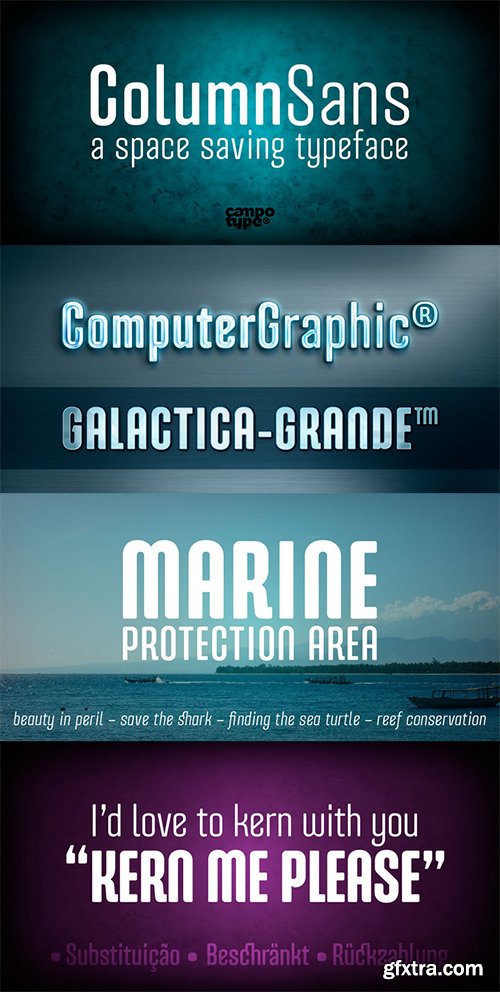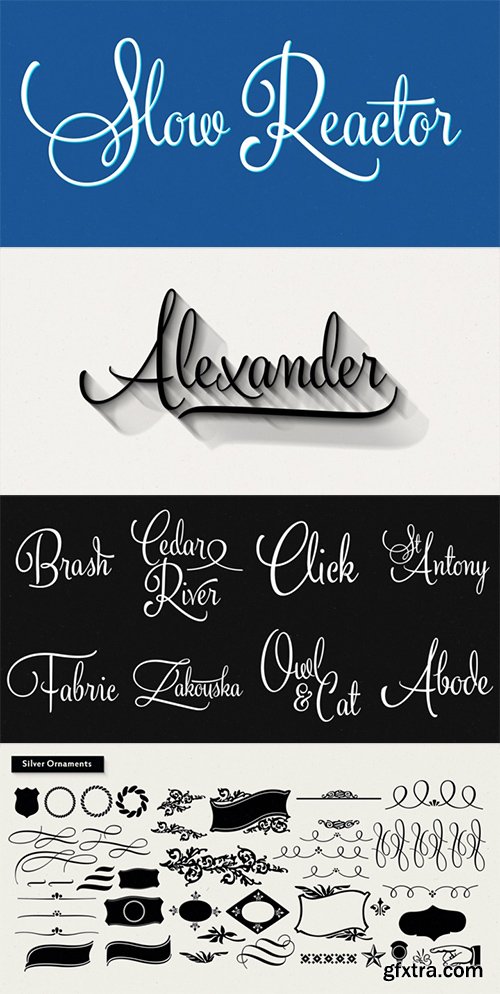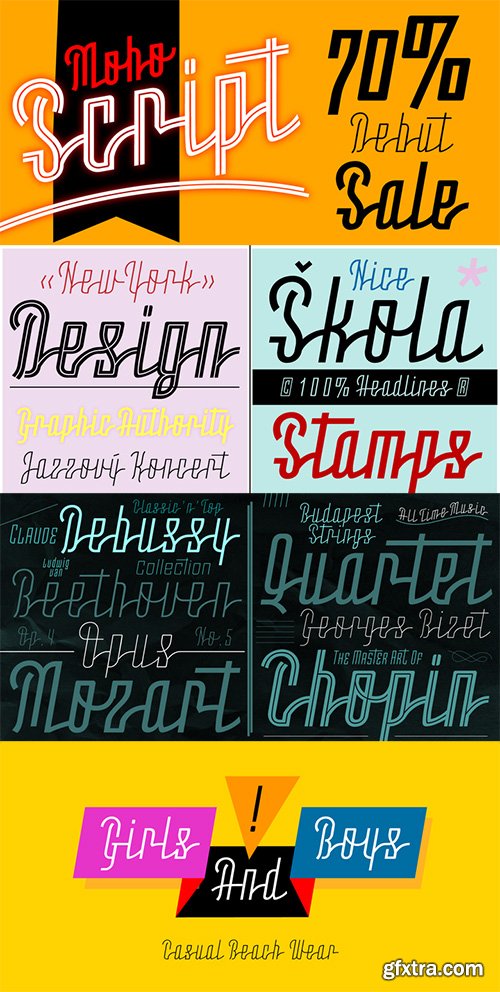
Column Sans, talking about space efficiency. The character set that condensed can maximize the use of limited space without losing good legibility aspects. The typeface is very appropriate to be used as a text in a small column widths, display text, caption, title, author credit on the film, etc.Column Sans is available in OpenType format in the three weights Light, Regular, and Bold, whereby there are corresponding italics for all variants. In the same narrow italic versions, the “a” has a closed form while the “f” has a descender.Besides of standard ligature, this typeface is also equipped with some additional ligature and deligature like “fr”, “tt”, “cb”, “ch”, “ck” and so on as well as three “stylistic ligature”: “the”, “Mr” and “Mrs”.Please find more information about the OpenType Manual of this typeface on the gallery page (pdf) if possible.
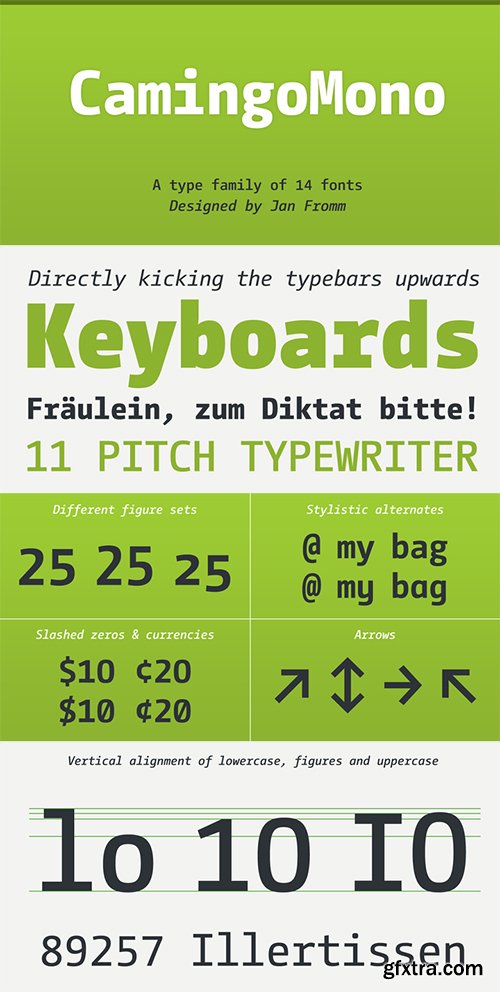
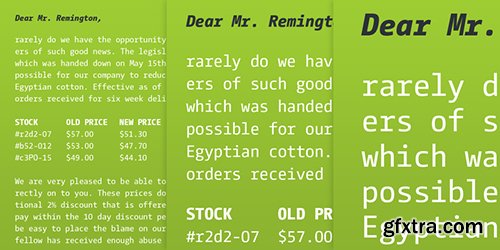
CamingoDos Office is suited for use in office environments. It consists of four style-linked fonts: They can be accessed by using the »B« (Bold) and »I« (Italic) buttons in common office programs such as Microsoft Word. The fonts are manually hinted, so they perform well on screen.CamingoDos is characterized by tight shapes, elliptical curves, subtle contrast and a strong, humanistic appearance: attributes that were all applied with particular care and attention for legibility.
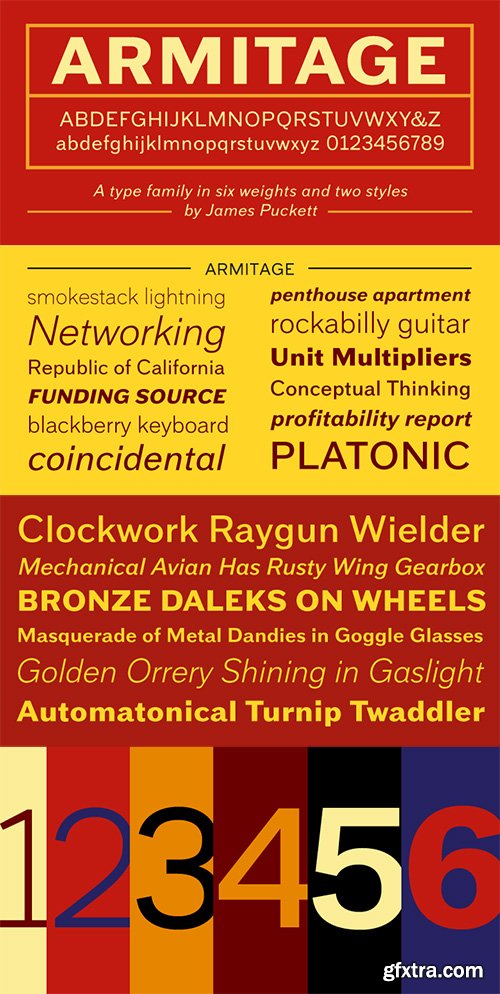
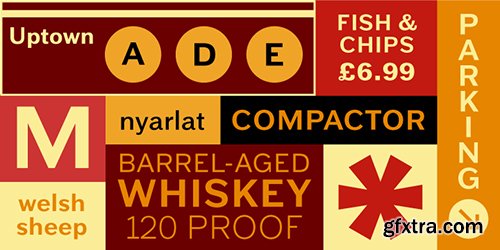
Sturdy and humane, Armitage renders type with vintage American warmth. Even with a subtle sparkle, Armitage stays humble to let words work.Rather than build on recent trends, Armitage starts over, derived from designs of the late nineteenth century. Designer James Puckett cast a wide net for source material. Letters from sign manuals, inscriptions, period posters, and architecture inspired Armitage as they inspired the designers of the nineteenth century.Armitage’s asymmetrical strokes and subtle flares prevent monotony by rolling with the cadence of language. Six weights and real italics make Armitage suitable for a wide range of tasks. Sturdy features stand up to adversity. With a strong jaw clenched in a grin, Armitage is always ready to work.
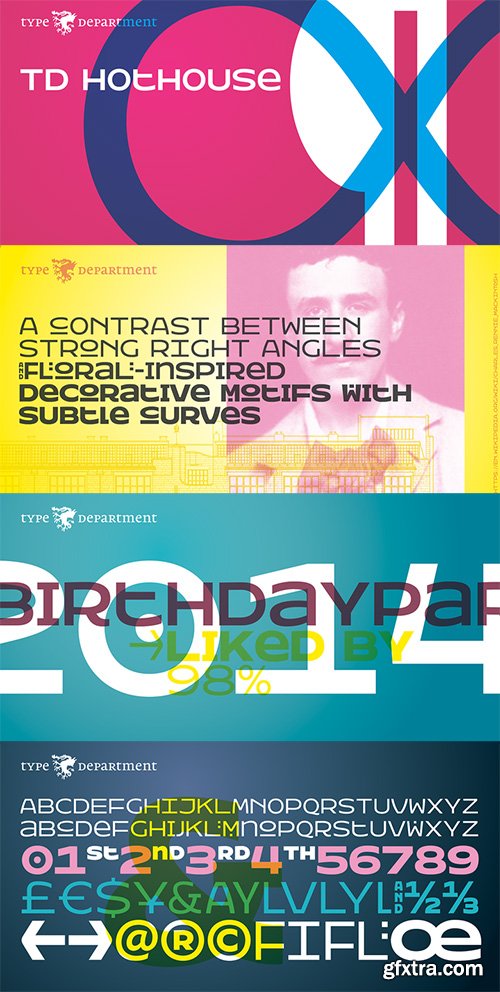
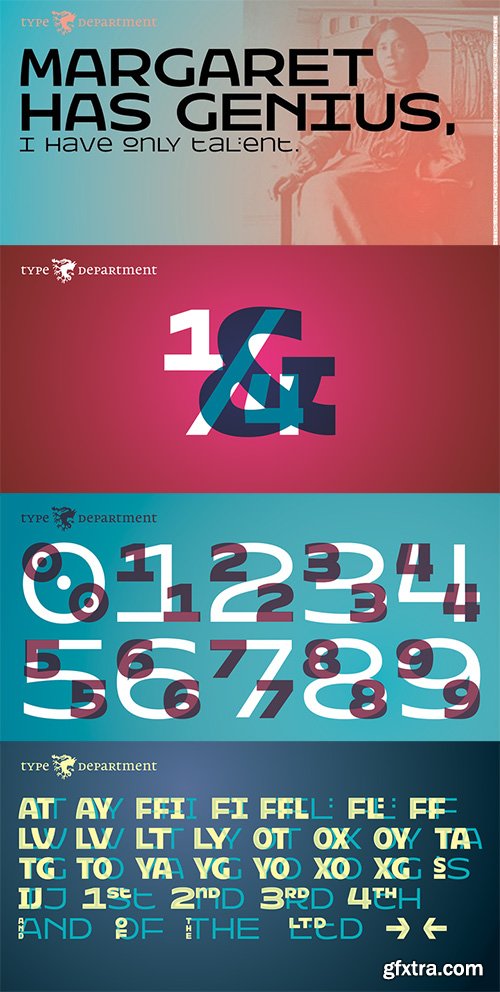
Hothouse was designed in 2001 for The Glasgow School of Art and is still in use as their corporate typeface today. It is recognizably inspired by Charles R. Mackintosh’s (1868–1928) explorations in the field of letterforms, renown architect of The Glasgow school of Art.Based on a square the (almost entirely) monospaced Hothouse corresponds to Mackintosh’s art nouveau architecture. For the Type Department release Hothouse was carefully expanded into a versatile font family with Regular, Medium and Bold weights and includes a widely extended character set. Interchangeable upper and lower case characters and a set of alternative glyphs and ligatures provide great variety to the appearance of your text.
Silver is a clean and elegant connected script. Silver is packed with more than 1000 glyphs. Click on Swash, Stylistic or Titling Alternates or manually choose from Glyph Palette from even more alternate characters. Keep on Standard Ligatures for maximum smoothness.Silver is best used on creating elegant headlines, logos & posters for packaging and branding purposes.Silver family has Regular and Black script fonts and an ornament set that is designed to support the typeface. For the best price purchase the whole family.
Moho Script introduces a decorative modern geometric of Japanese, sometimes german flavor for an unconventional script. It breaks the mold of the usual fonts to create a new visual impact of absolute contemporaneity with a retro touch. Moho Script, as all typefaces of this extended family, comes in five weights and an inline style, and it’s been provided with a complete set of glyphs for languages ??of the Eastern and Western Europe. With the OpenType feature Swash you can make words with letter “t” that overlap to achieve what no meet in others typefaces. Moho Script is a perfect font for headlines display, menus, deals, logos, labels, outdoor advertising and publishing design, great for architecture, fashion, music, aviation and social affairs.
Garuda typeface, featuring the shape and style based on “Garuda Pancasila”, the state symbol of the Republic of Indonesia. Garuda is a mythical bird in the Javanese puppet stories, is very similar to the eagle.At the typeface we can find more ligatures beside than the standard. Within Garuda at least encoded 792 glyphs per weight onto major codepage: win 1252, 1250, 1254, 1257 including Mac OS Roman. It is containing more OpenType features such as swash, contextual alternate, stylistic, figures/number, and a few bit ornaments.The typeface has a pretty good readability and legibility even in small sizes. So it is useful for short texts (text length? Whom fear) for print and screen material. Usage on headlines, posters, titles, or something like that, can utilize ornament lines as a sweetener.
Book Jacket is arguably the most famous of all typefaces done in the Typositor era. Designed by Ursula Suess over an entire year, and published in 1972, Book Jacket became an instant success story that lasted well into the 1980s (even though it was copied by Phil Martin who published it under the name Bagatelle shortly after its release).Almost 40 years later, Ursula Suess and Canada Type consolidate their talents to bring you a revised, improved and expanded digital version of this film type classic, including small caps, additional swashes and new alternative forms.Book Jacket is available as a 4-font package in Mac PostScript and universal TTF format, or a single Pro OTF which includes features for small caps, swashes, caps to small caps, stylistic alternates, and class-based kerning.
Alegreya is a typeface originally intended for literature. Among its crowning characteristics, it conveys a dynamic and varied rhythm which facilitates the reading of long texts. Also, it provides freshness to the page while referring to the calligraphic letter, not as a literal interpretation, but rather in a contemporary typographic language.The italic has just as much care and attention to detail in the design as the roman and make a strong emphasis in the paragraph. The bold weights are strong, and the Black weights are really experimental for the genre.Not only does Alegreya provide great performance, but also achieves a strong and harmonious text by means of elements designed in an atmosphere of diversity.